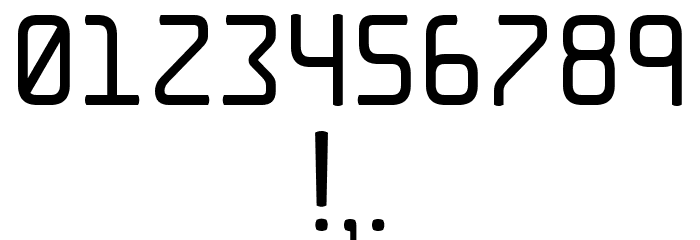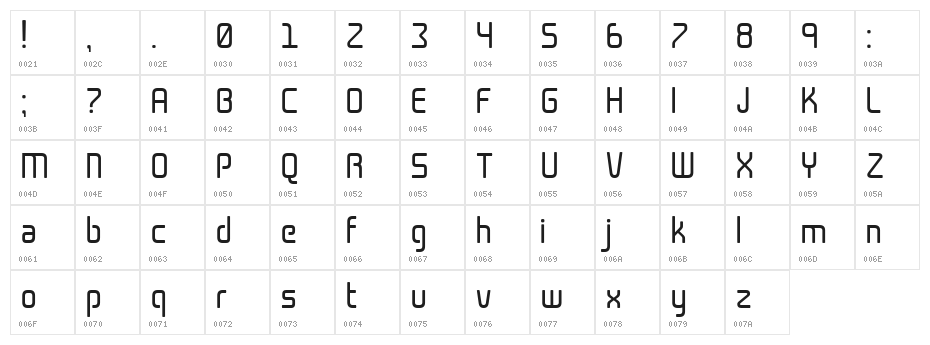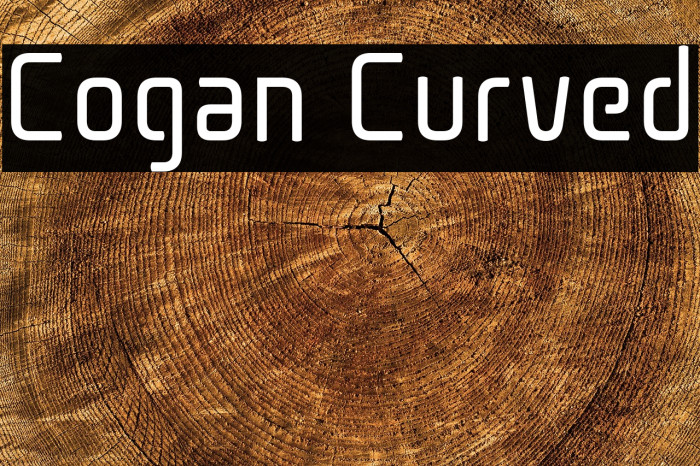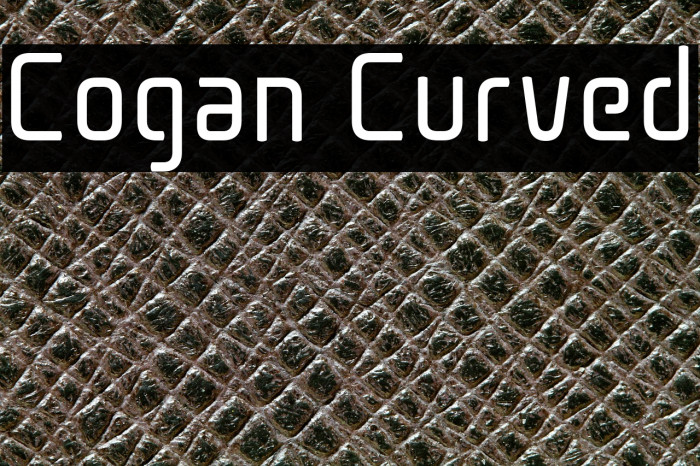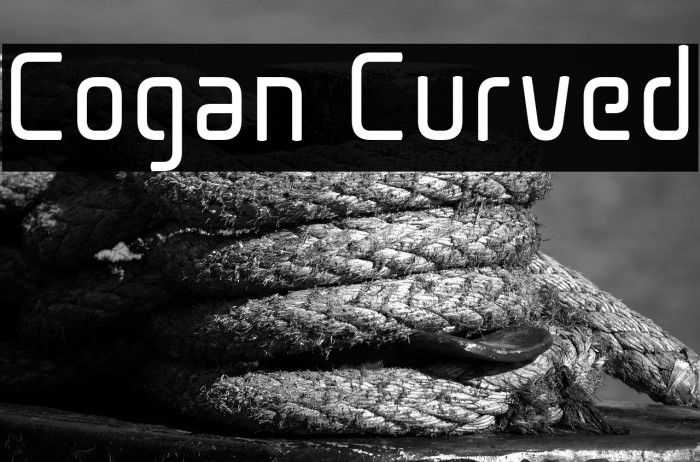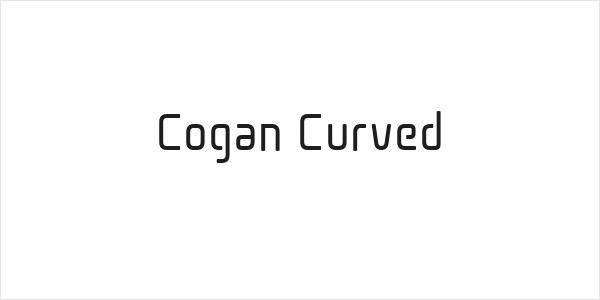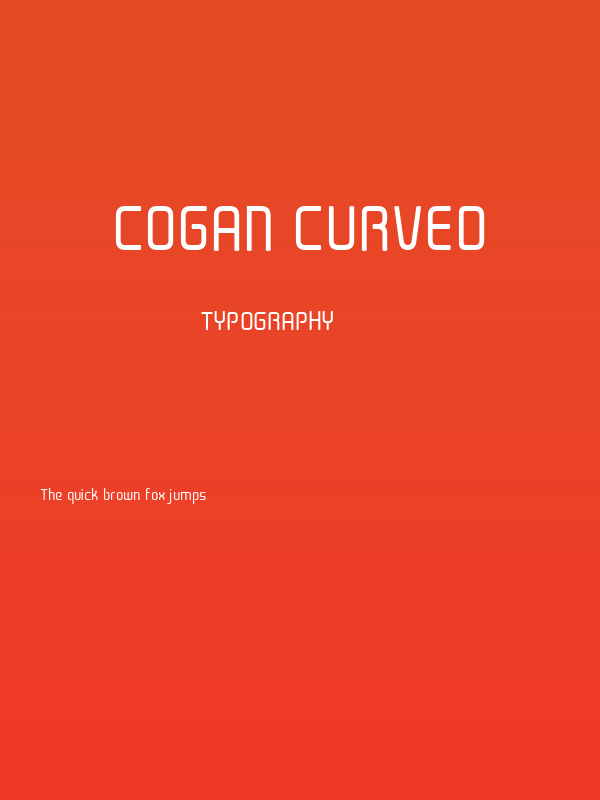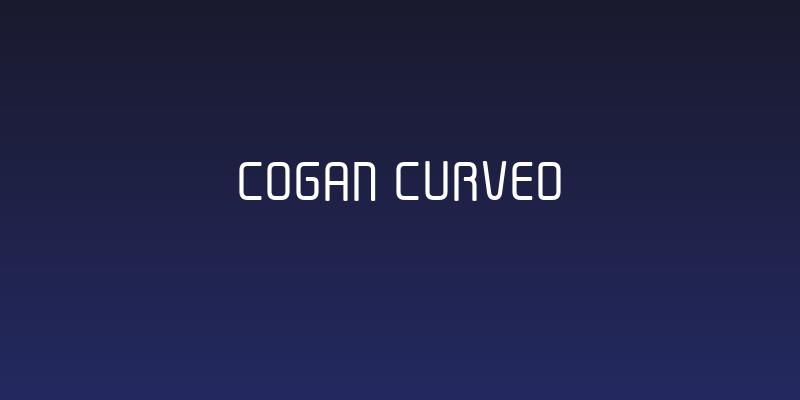
Cogan Curved Font
Cogan Curved Description
This font features a modern, geometric design with a distinct curved style. Each character is crafted with smooth, rounded edges, giving it a sleek and contemporary appearance. The uniform stroke width across all characters provides a clean and consistent look, making it highly legible. The uppercase and lowercase letters maintain a harmonious balance, while the numerals are easily distinguishable. Special characters are designed with the same attention to detail, ensuring they blend seamlessly with the rest of the font. Its simplicity and elegance make it versatile for various design applications.
| Proposed Projects | Ideal for branding, digital interfaces, signage, and modern print materials. |